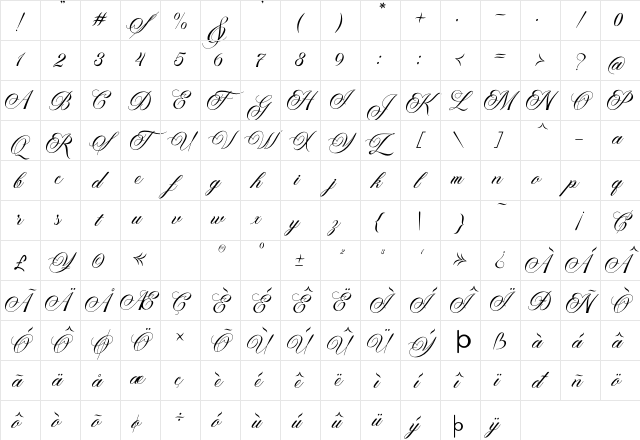
Paperlight Script Regular
Foundry: Putracetol Studio, Karanganyar.
Designer: Putra Novembria Candra Kusuma
Design Context for Paperlight Script
Paperlight Script flows with the natural rhythm of handwritten lettering, making it ideal for designs that call for warmth and personal expression. Its slender proportions lend an understated elegance to any composition.
Font Pairing: Combine Paperlight Script with a simple geometric sans for maximum contrast - the tension between flowing curves and clean structure is a classic typographic pairing.
Pro Tip: Use Paperlight Script for short runs of text - names, titles, or taglines. Extended body copy in script faces tires the eye quickly.